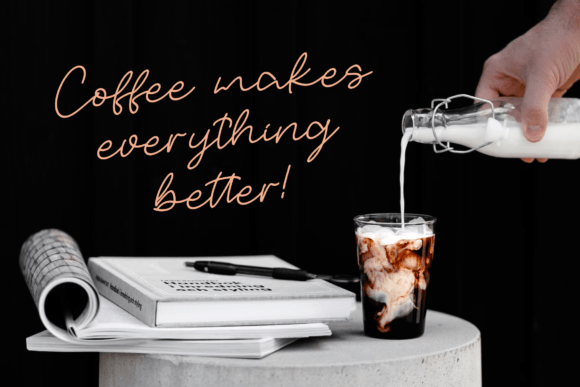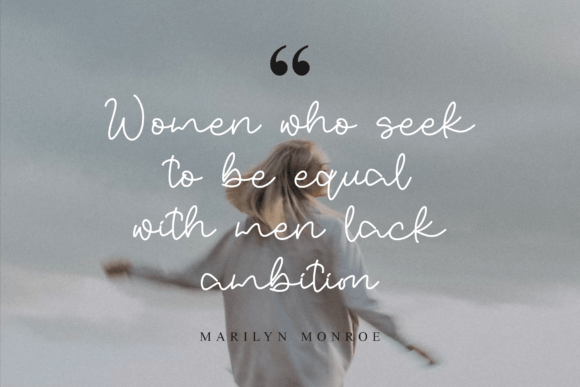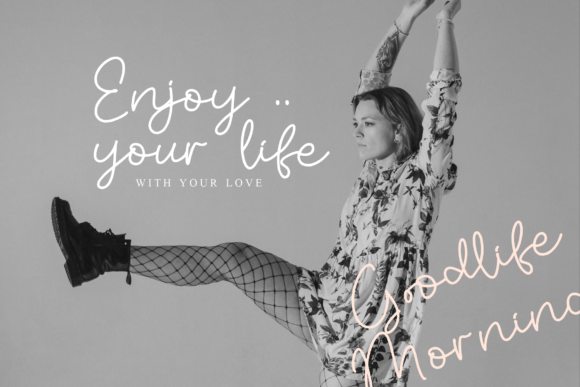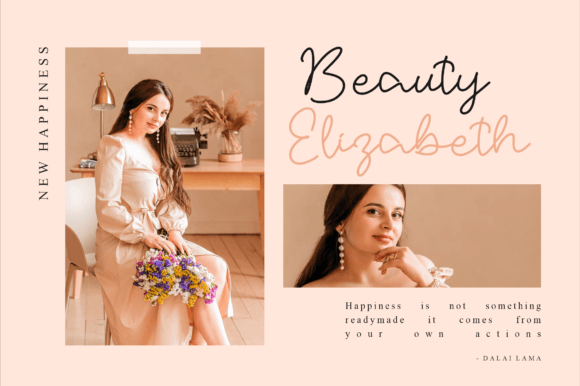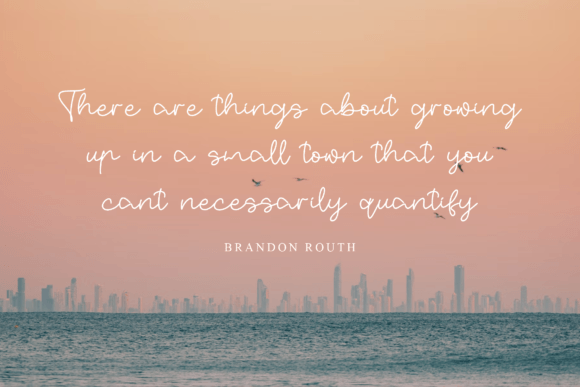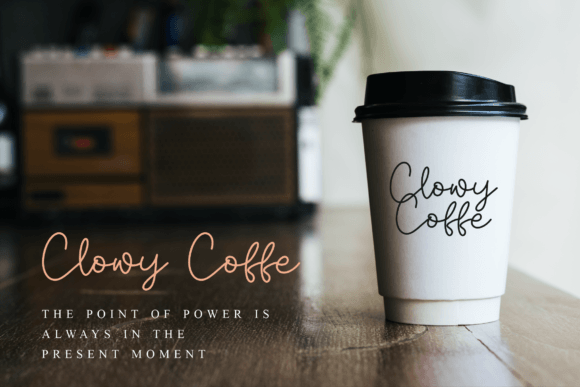
Introduction to Roseflower Monday Font
Roseflower Monday is a flowing handwritten font, described by an elegant touch, perfect for your favorite projects.
Key Features of Roseflower Monday Font
Why Choose Roseflower Monday Font?
Roseflower Monday Font offers exceptional quality and versatility, making it a valuable addition to your design toolkit. Whether you’re creating for personal projects or commercial use, Roseflower Monday Font delivers professional results.